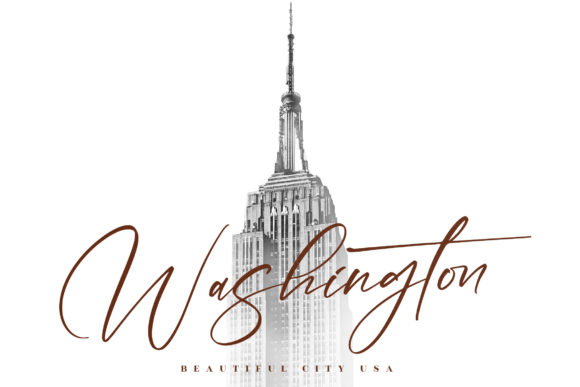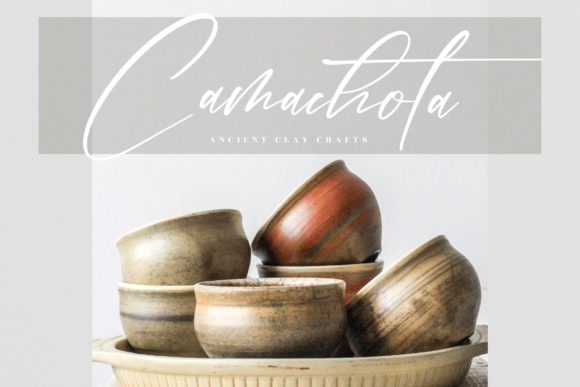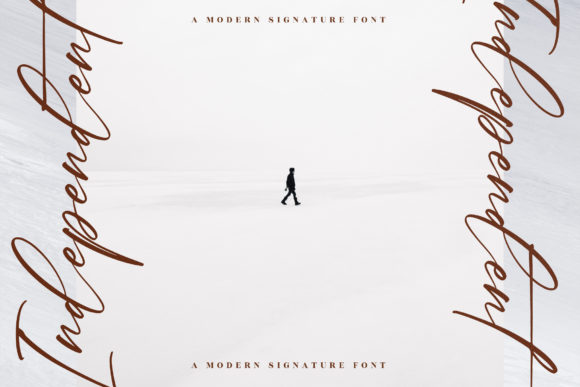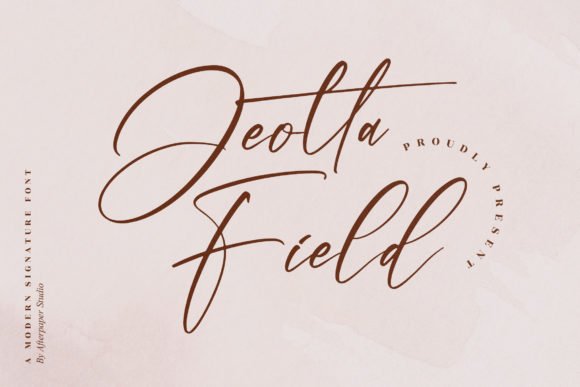
Introduction to Jeotta Field Font
Jeotta Field is a delicate and stylish script font.
It is thin, elegant and luxurious and it will match a wide range of creations Fall in love with its incredibly versatile style and use it to create spectacular designs.
Key Features of Jeotta Field Font
Jeotta Field Font offers exceptional quality and versatility, making it a valuable addition to your design toolkit. Whether you’re creating for personal projects or commercial use, Jeotta Field Font delivers professional results.